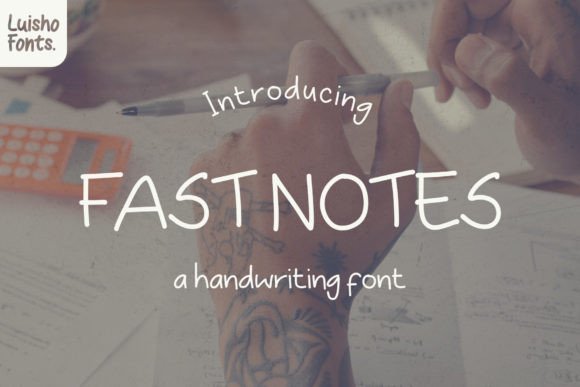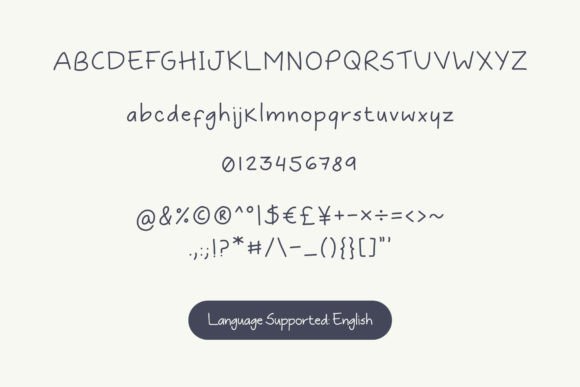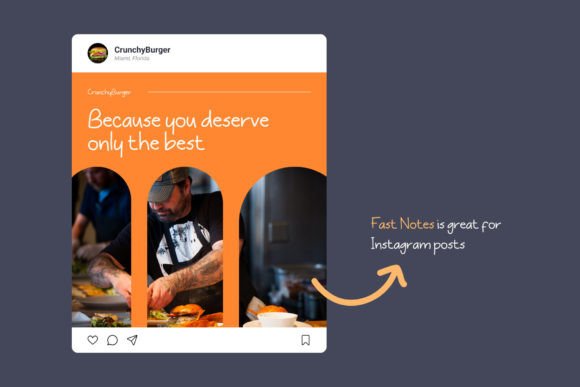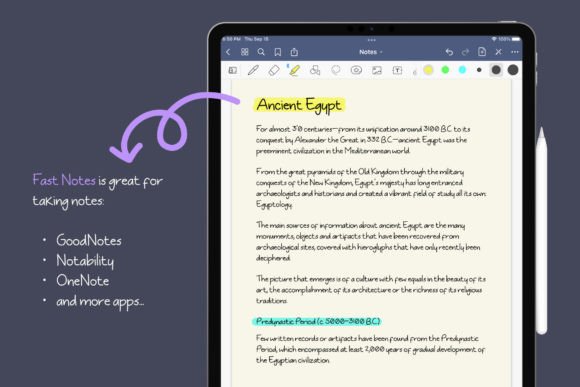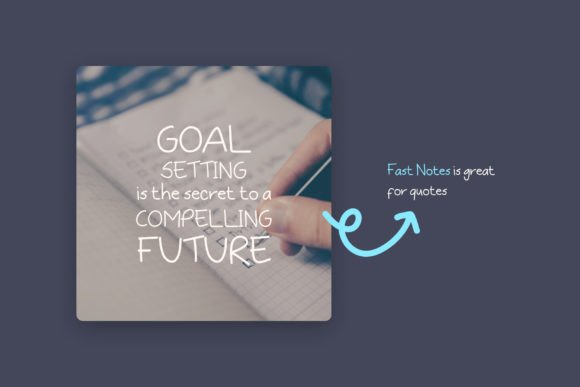
Fast Notes Font
“Fast Notes” is a modern script font that’s well-suited for a variety of crafting needs. Its minimalistic lettering adds a clean and contemporary touch, making it an ideal choice for enhancing existing projects and helping them stand out.
The simplicity of “Fast Notes” is one of its defining features. Its minimalistic design allows it to blend seamlessly with other elements, making it perfect for enhancing and accentuating existing projects.
This font’s versatility makes it a valuable asset in various creative applications. Whether you’re looking to add a subtle yet stylish touch to a design, create contrast, or make specific elements pop, “Fast Notes” can adapt to your needs.
The minimalistic lettering of “Fast Notes” can be a valuable addition to your crafting toolkit, whether you’re a professional designer or an enthusiast seeking to enhance your creative projects.
In summary, “Fast Notes” is a modern and minimalistic script font that excels in complementing and accentuating existing designs. Its clean and contemporary aesthetic makes it a versatile choice for various crafting needs, helping your projects achieve a polished and stylish appearance. Embrace the simplicity of “Fast Notes” and let it enhance your creative endeavors.